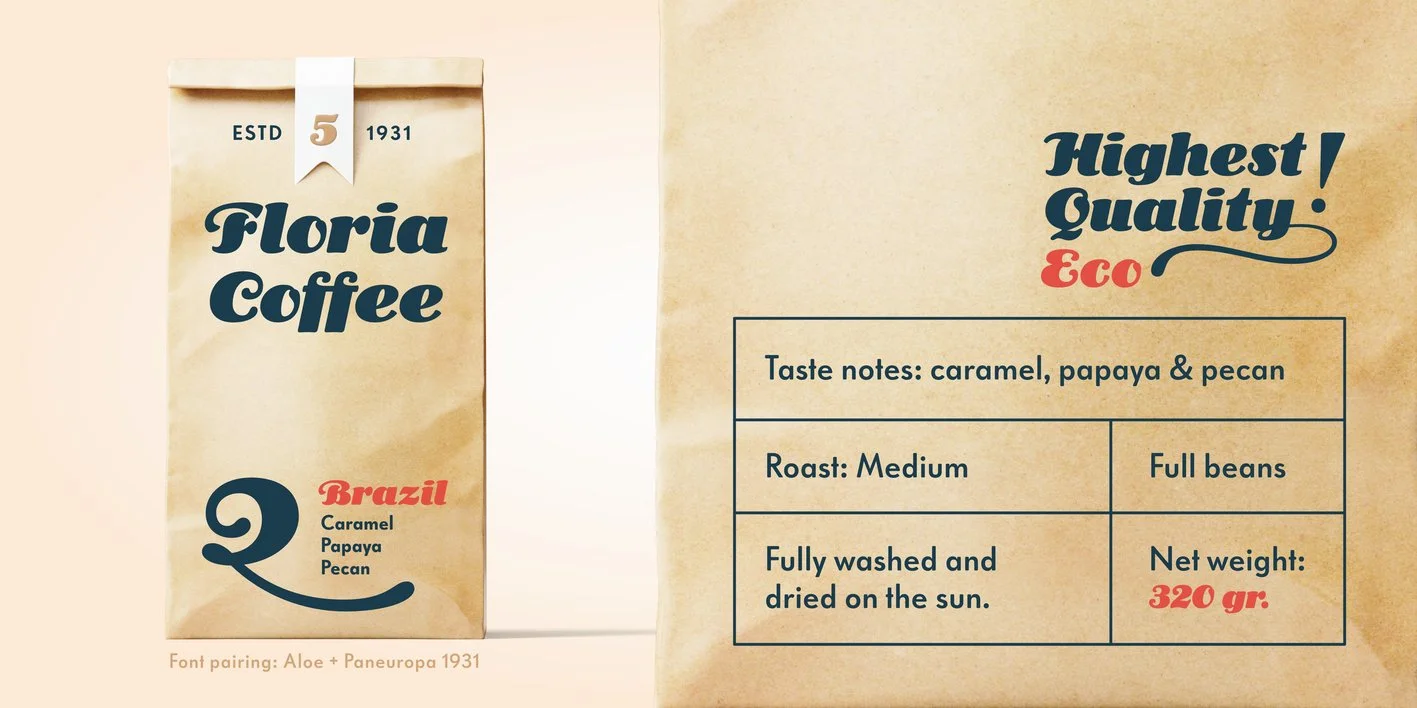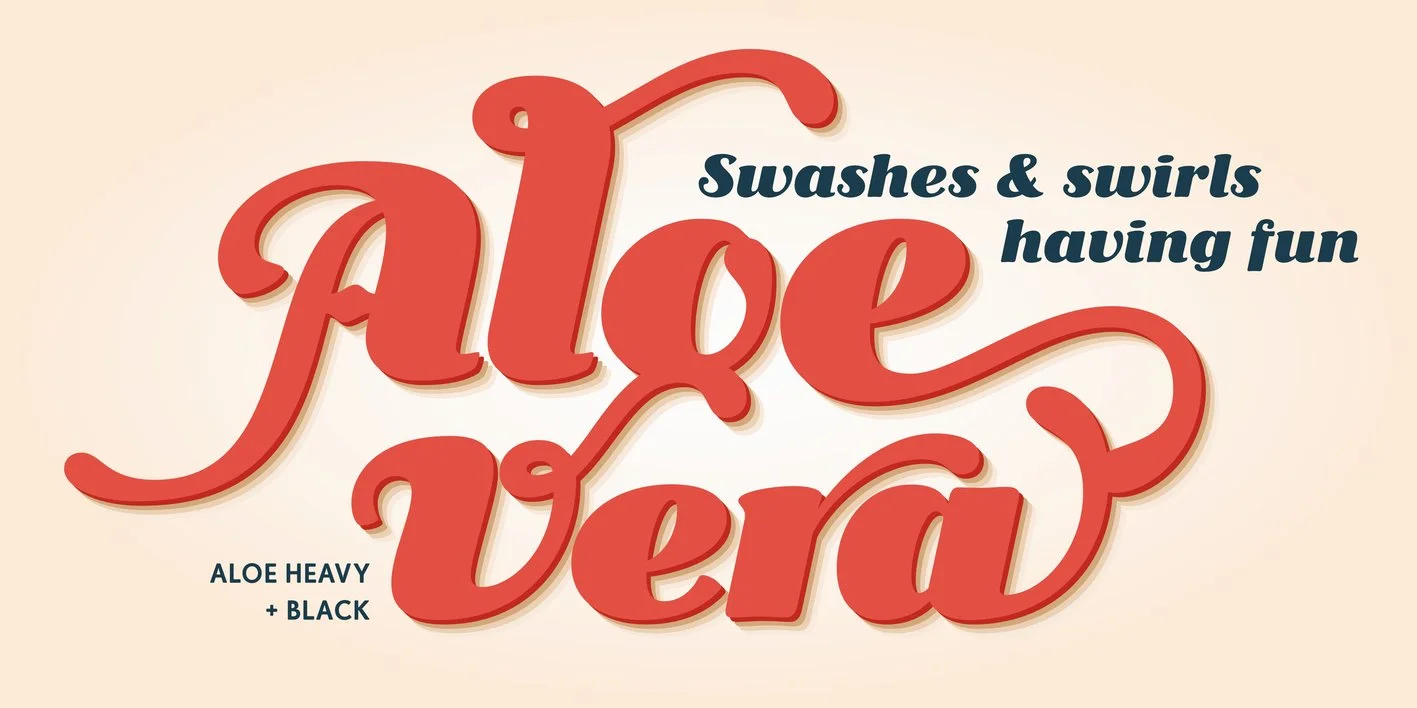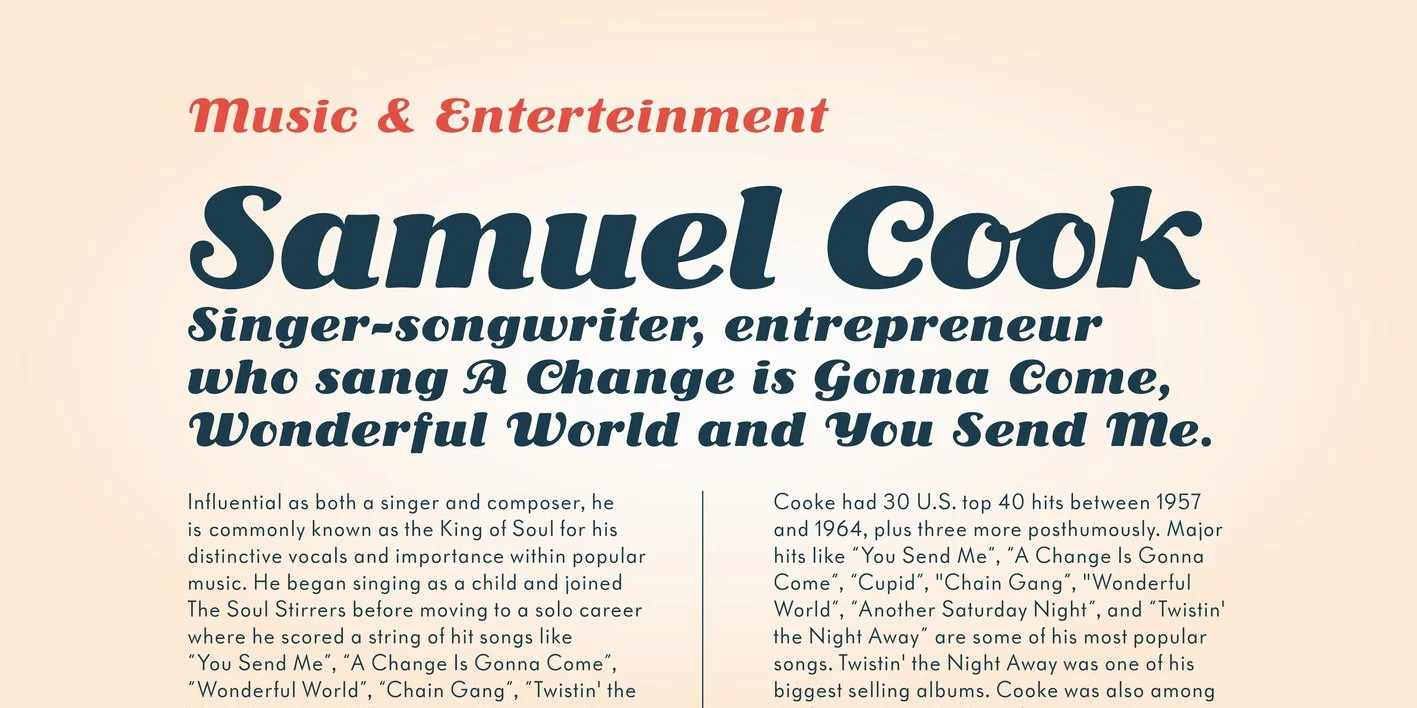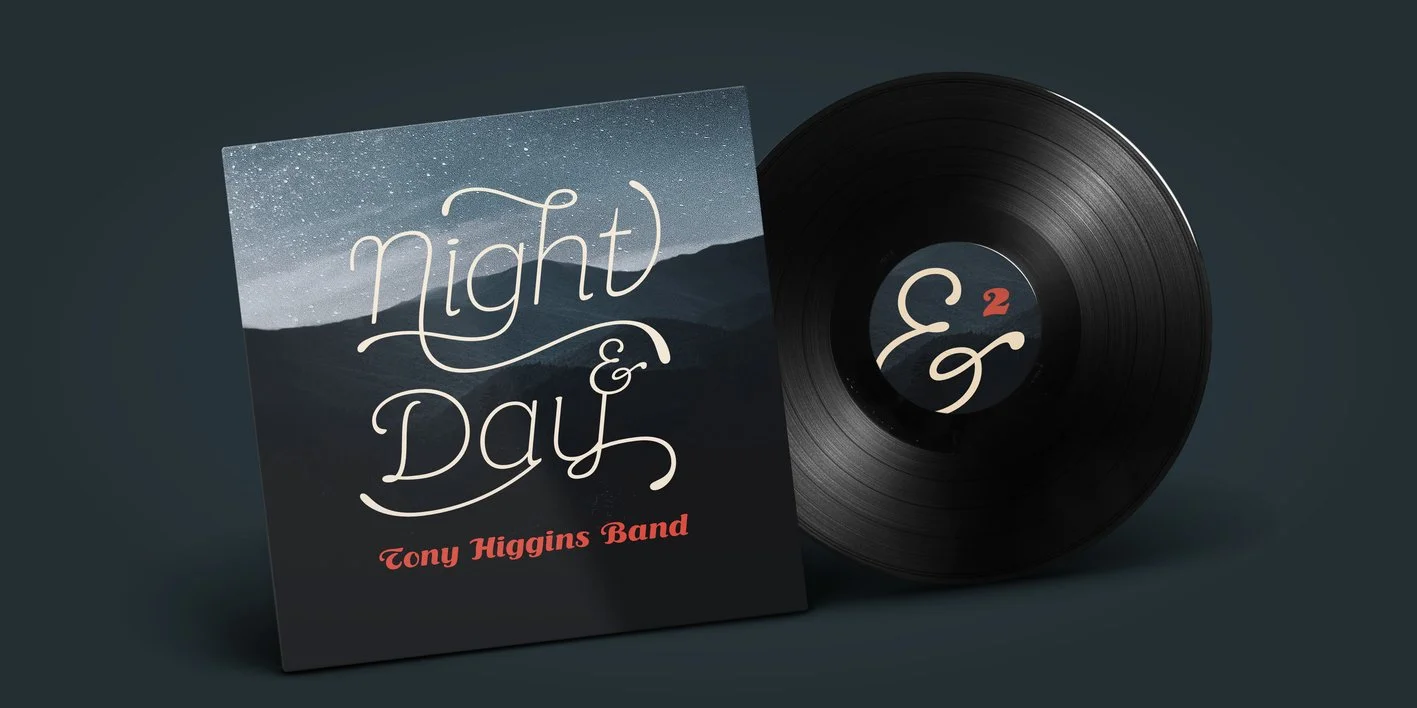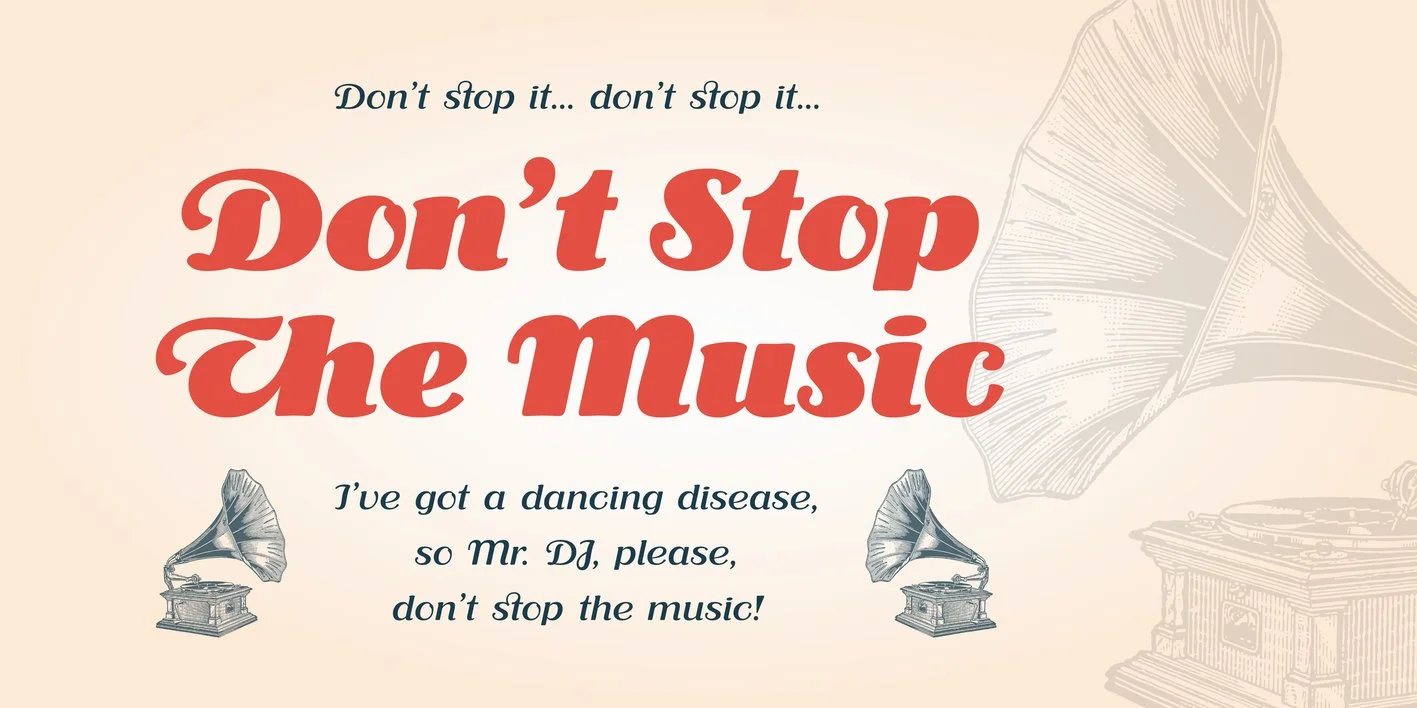
Aloe Font
There is a particular satisfaction in finding a typeface that delivers controlled contrast that rewards close inspection without compromise. Aloe consistently provides it. The typeface brings an elegant, calligraphic sensibility to a broad range of creative disciplines, with refined proportions and careful stroke modulation that holds up whether the work is print-first or screen-first.
In practice, Aloe proves particularly effective for social media graphics, product labels, editorial layouts, web design, fashion editorials. Designers reaching for it find that the type decisions feel resolved rather than laboured — a useful quality when client timelines are tight.
The range of applications extends to poster creation, beauty packaging, logo design, perfume labels. That breadth is deliberate: the proportions and spacing were stress-tested across a wide range of mock briefs before the typeface was finalised.
Ascenders and descenders are drawn with generous extents that give the script its characteristic rhythm. Ligature pairs have been individually tested to prevent collisions, and the baseline is slightly bounced to suggest a natural, unhurried hand.
Independent studios handling packaging and editorial work find Aloe a reliable choice for projects that demand both personality and restraint. The design avoids the self-conscious quirkiness that dates quickly, settling instead for considered distinctiveness that holds up over time.